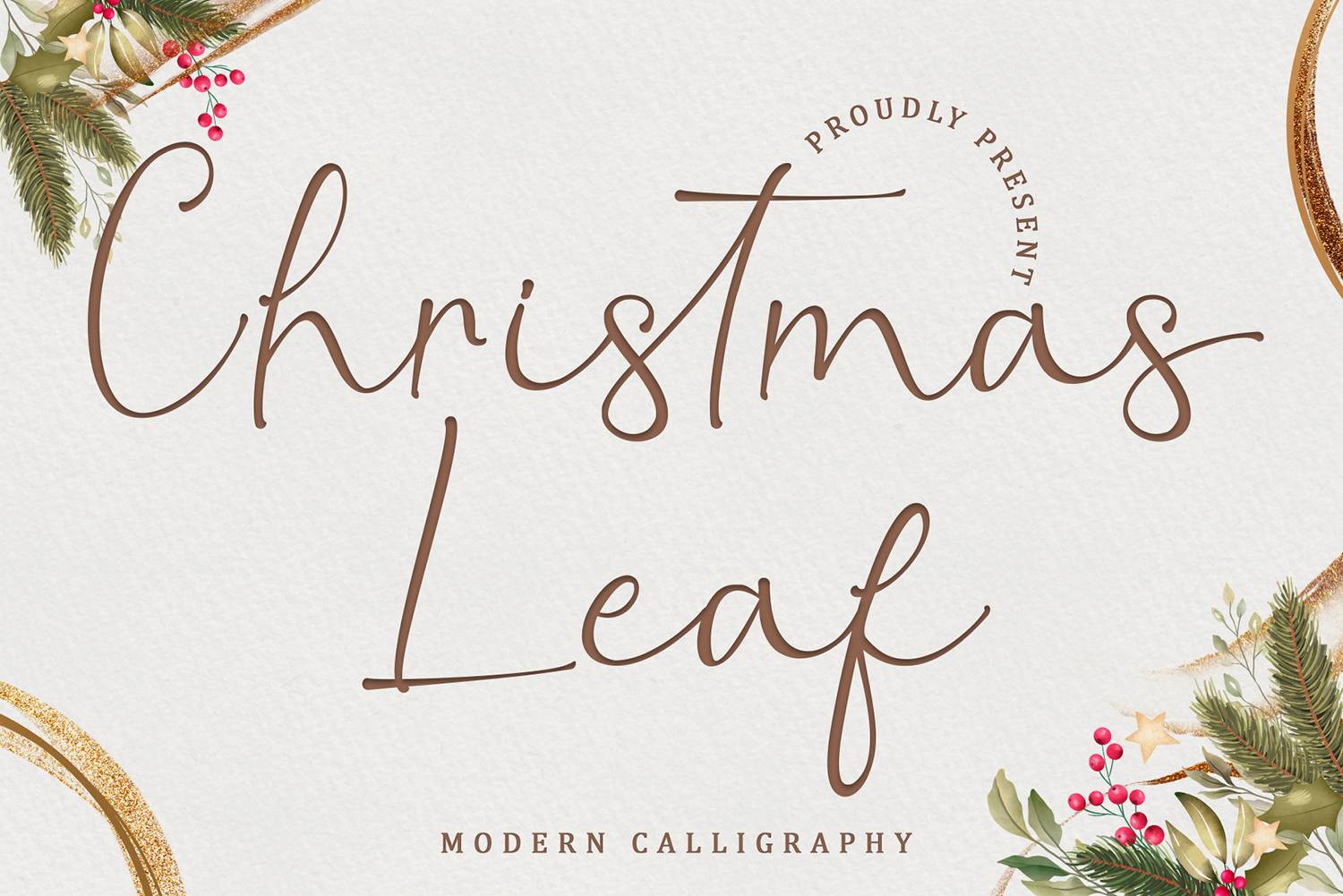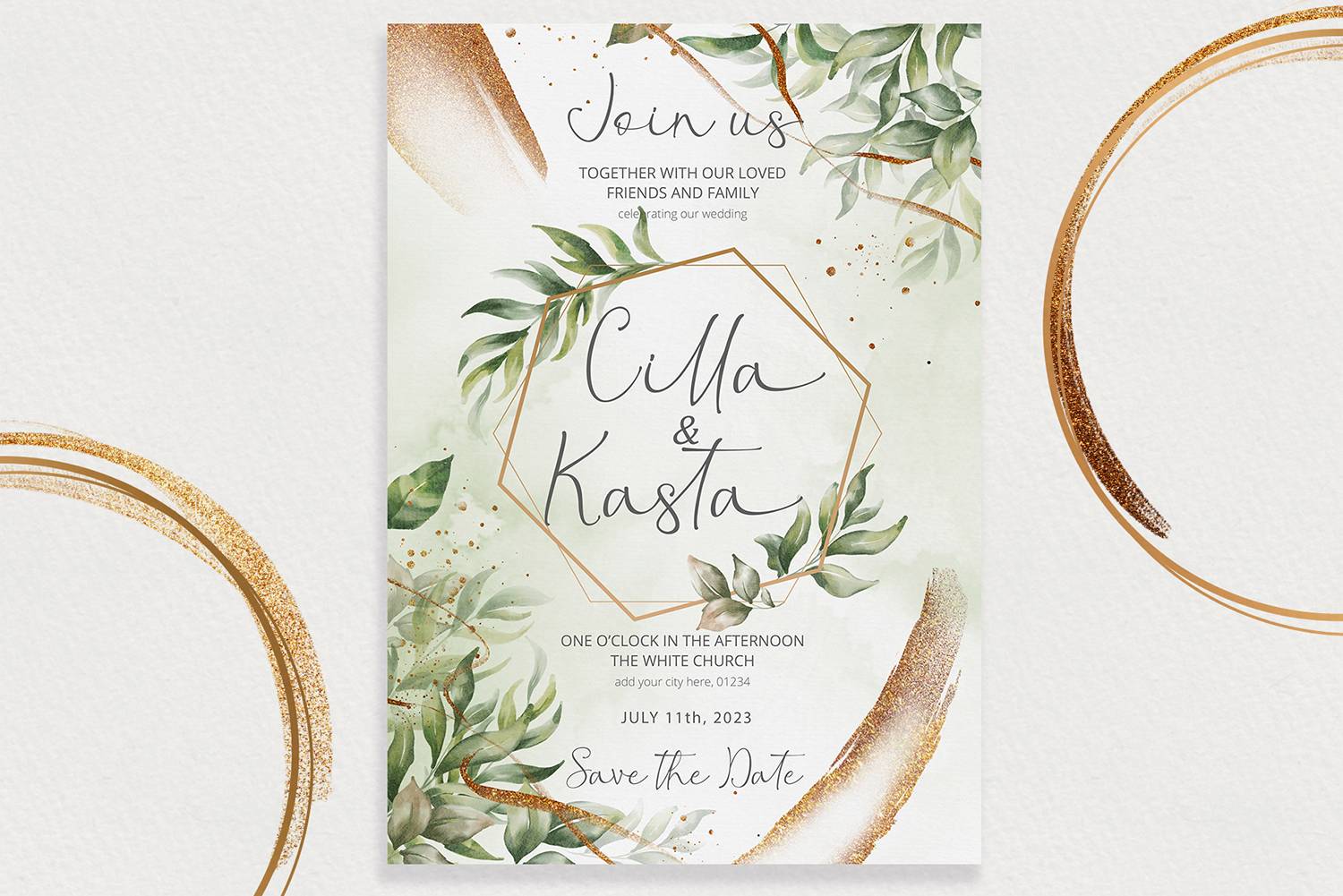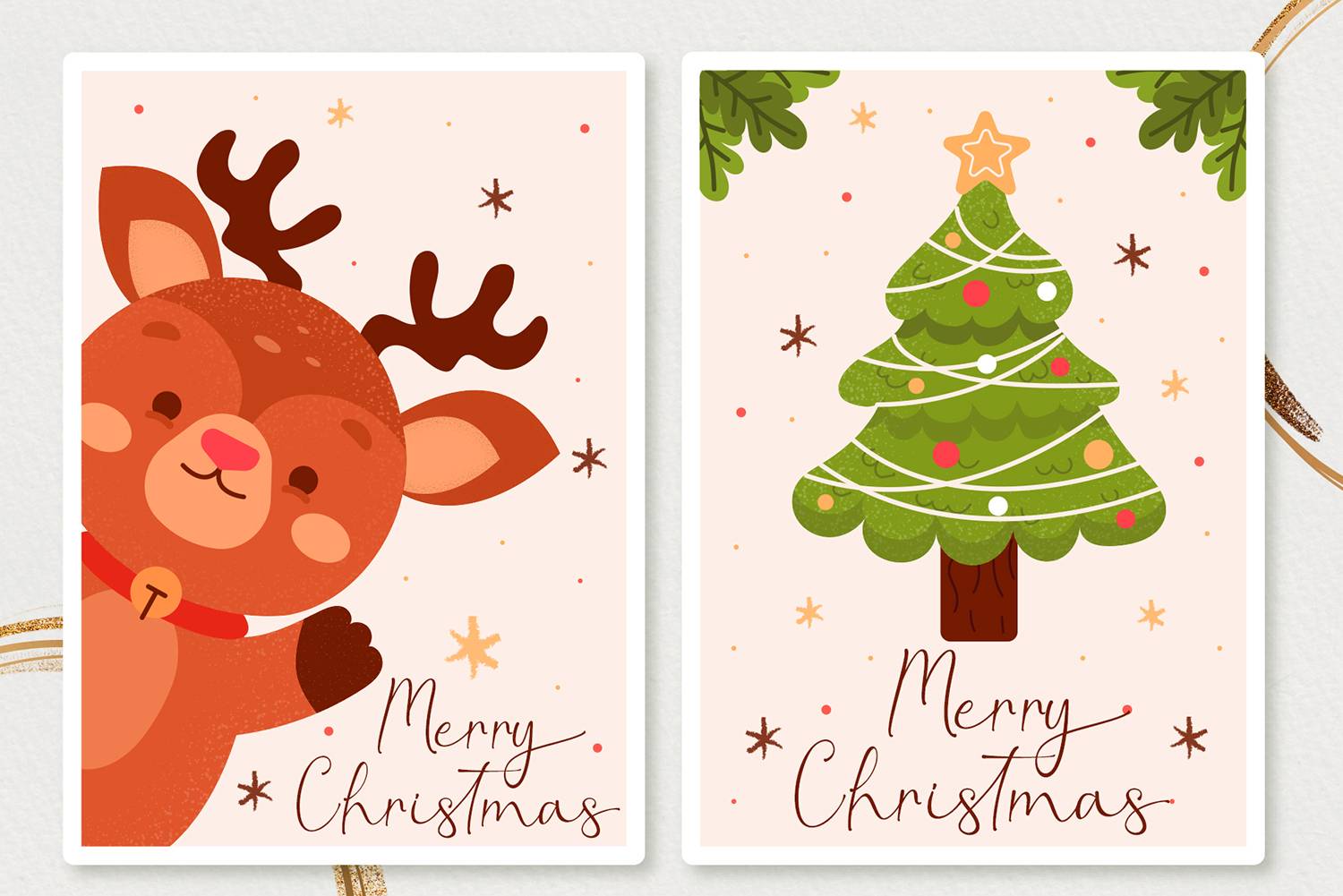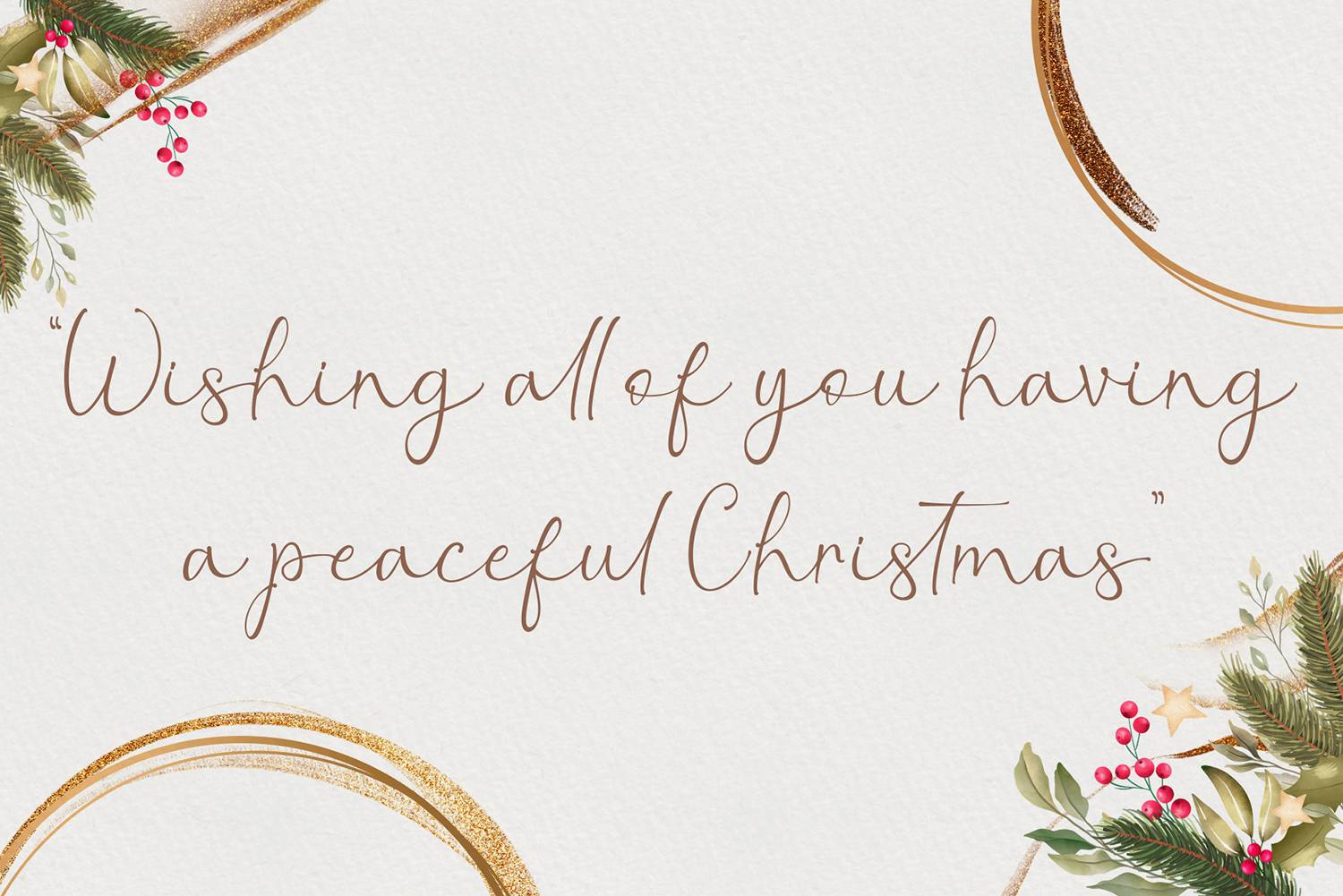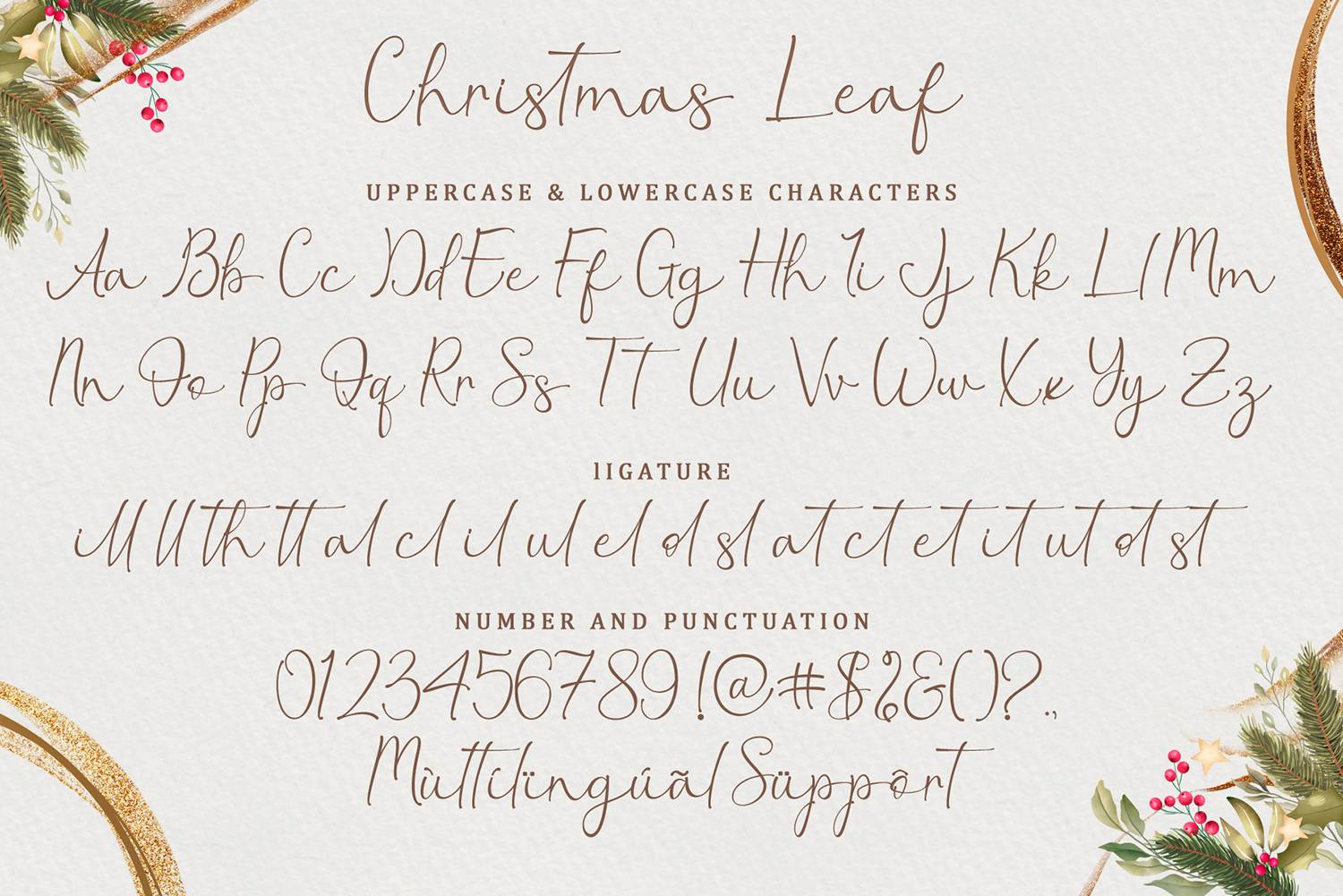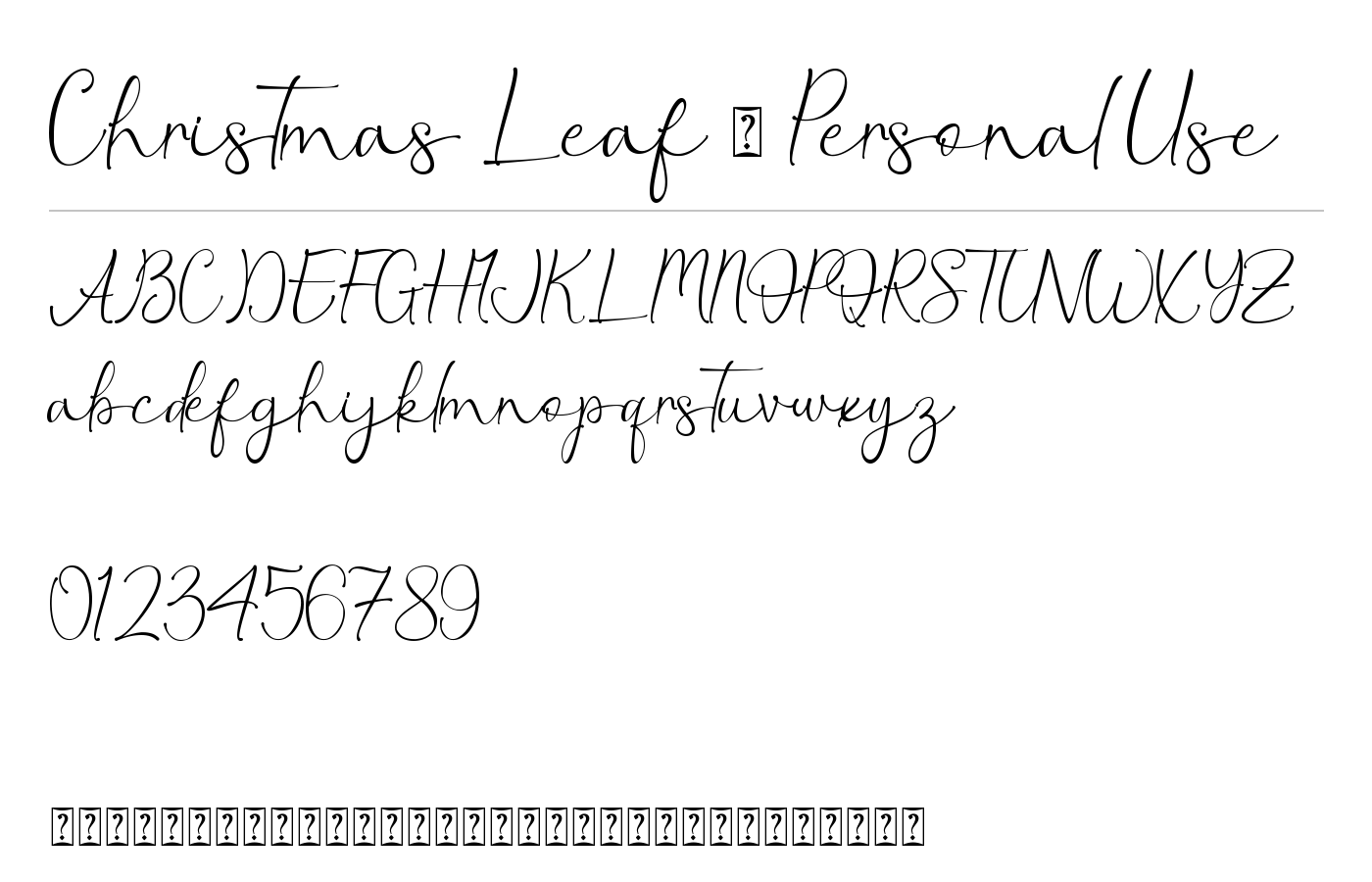
Christmas Leaf is a delicate, handwritten script font with slender strokes and a light weight that feels airy and elegant. Its tall, flowing letterforms and subtle variations in line width give it a graceful, personal touch, perfect for adding a whimsical, festive charm to holiday cards, invitations, and branding that seeks a refined yet approachable look. This font works best in headlines or decorative uses where its fine details can shine and evoke warmth and sophistication.
Christmas Leaf Font
About Christmas Leaf Font